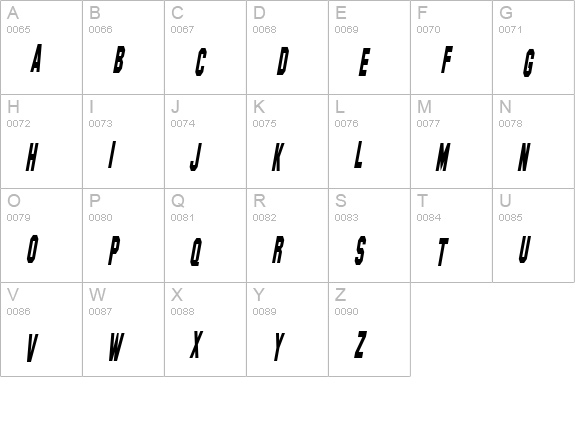
Hollywood Hills Condensed Italic is a distinctive, condensed-width, italic variant in the Hollywood typeface family \xE2\x80\x94 well suited to design and typography projects.
Introducing Hollywood Hills Condensed Italic font, a sleek and modern typeface that exudes elegance and sophistication. The italicized form of this font adds a touch of flair and style to any design project. Perfect for creating eye-catching headlines, logos, and branding materials, Hollywood Hills Condensed Italic font is versatile and highly legible. The best part? This stunning font is available for free download at FontsMarket.com. Whether you're a designer looking to elevate your projects or a business owner in need of a fresh new look, Hollywood Hills Condensed Italic font is sure to make a statement. Don't miss out on this opportunity to add a touch of Hollywood glamour to your creations with this beautiful font. Download it now and let your creativity shine!